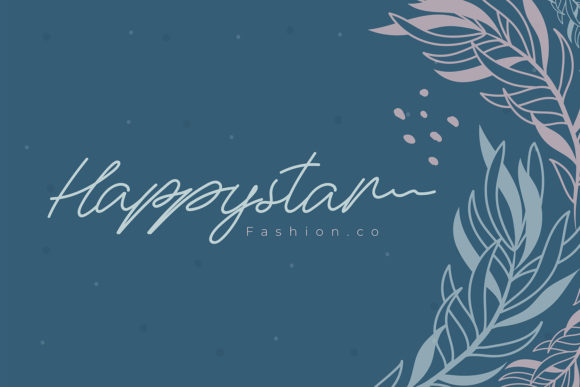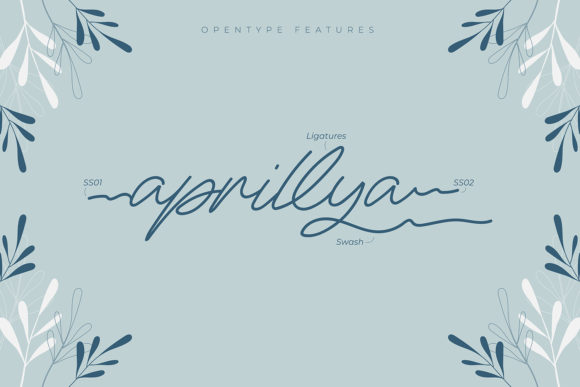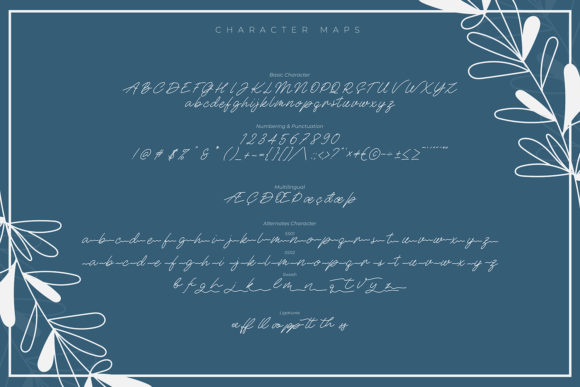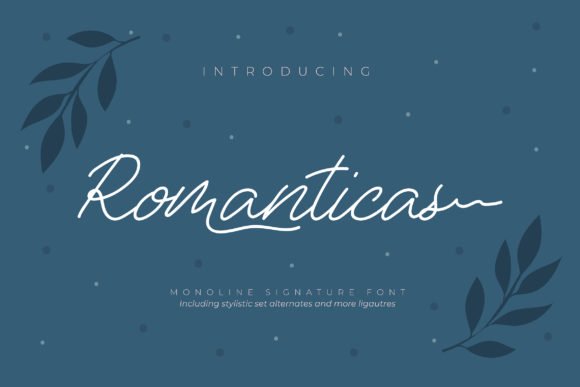
Introduction to Romanticas Font
Romanticas is a delicate and distinct handwritten font.
Incredibly relaxed and versatile, this font is the perfect fit for your most creative ideas Add it to your favorite projects and make them come alive.
Key Features of Romanticas Font
Why Choose Romanticas Font?
Romanticas Font offers exceptional quality and versatility, making it a valuable addition to your design toolkit. Whether you’re creating for personal projects or commercial use, Romanticas Font delivers professional results.